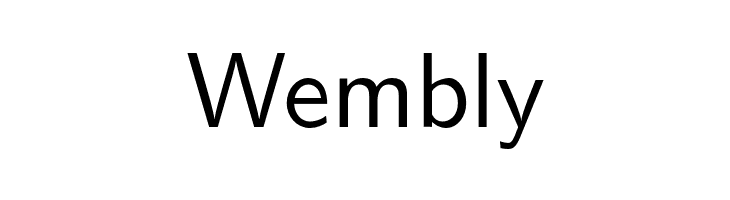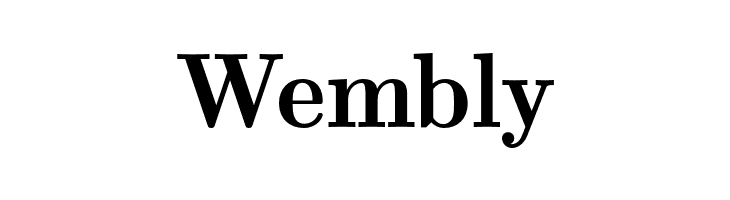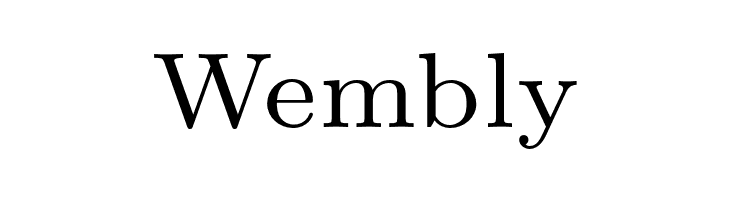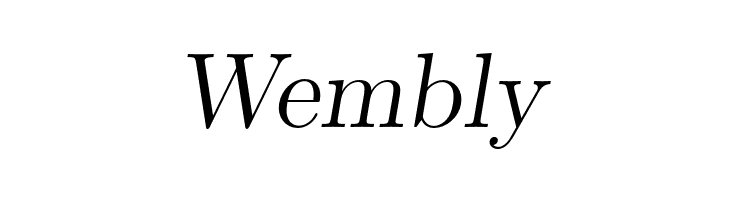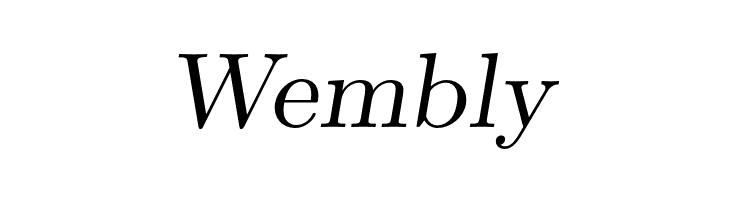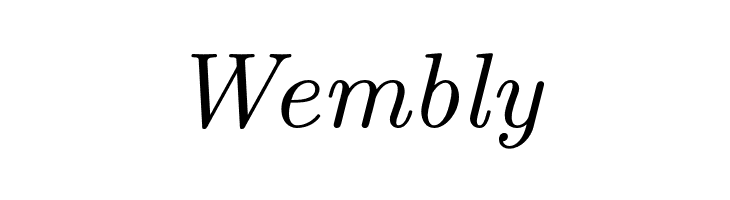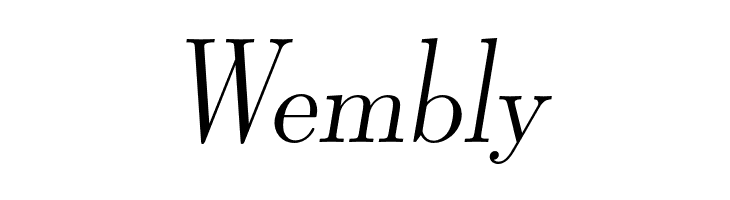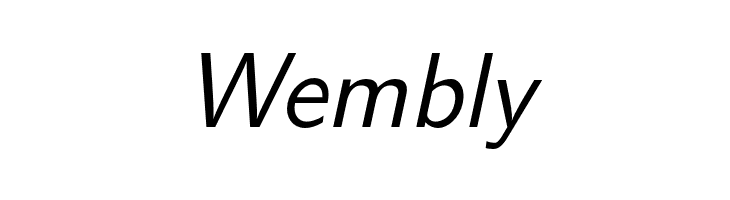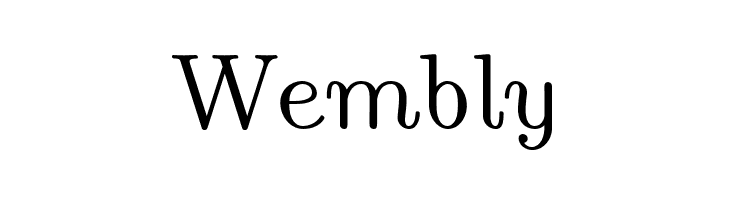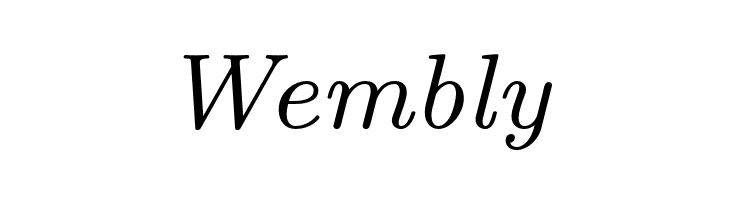
A classic serif font with elegant strokes and well-proportioned characters.
A bold, classic serif font with high contrast and pronounced serifs.
An elegant and classic serif italic font with smooth, flowing letterforms.
A classic serif font with elegant strokes and refined proportions.
A bold, classic serif font with high contrast and strong readability.
An elegant italic serif font with refined curves and classic style.
A classic serif font with elegant strokes and balanced proportions.
An elegant serif font with an oblique slant and moderate stroke contrast.
A classic serif font with elegant strokes and balanced proportions.
A classic serif font with an elegant oblique slant, offering sophistication and readability.
A classic serif font with strong, authoritative characters and sharp serifs.
A classic oblique serif font with elegant proportions and moderate contrast.
A classic serif font with high contrast and elegant strokes.
A bold, slanted serif font with elegant and dynamic characteristics.
Elegant serif font with a slant, featuring moderate contrast and classic styling.
A classic, elegant serif font with a slight slant and medium contrast.
Elegant serif font with a slant, offering a classic and sophisticated look.
A classic serif font with a slant, offering elegance and readability.
A classic serif font with elegant curves and a refined, traditional appearance.
A bold, modern sans-serif font with clear, evenly spaced characters.